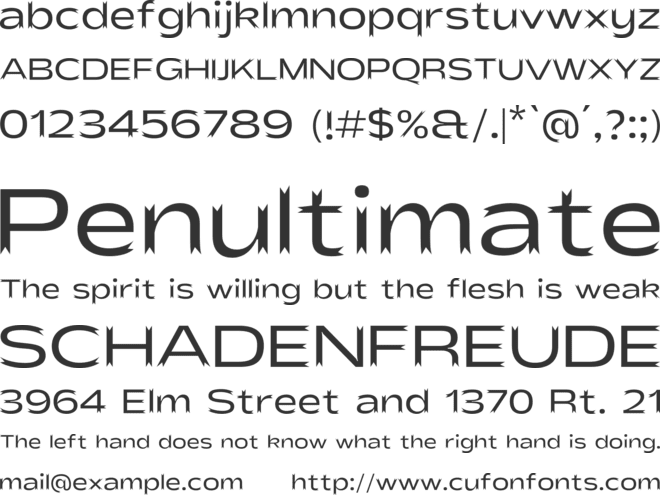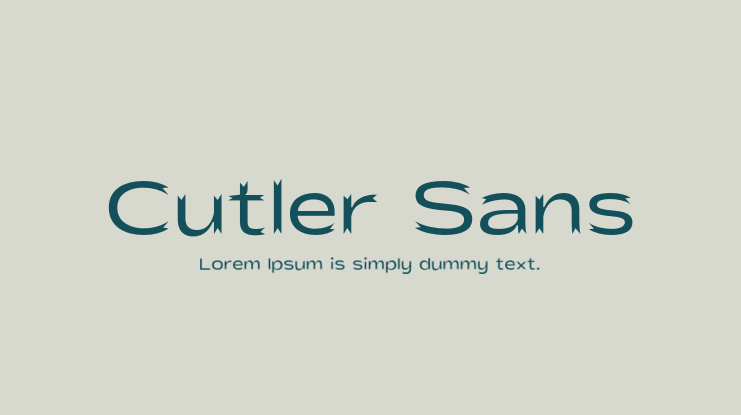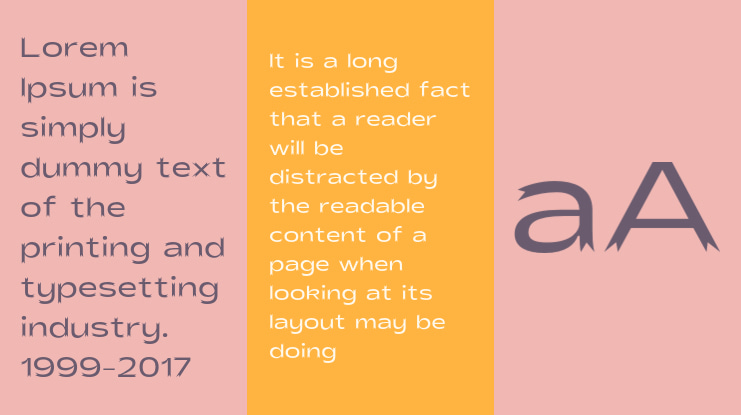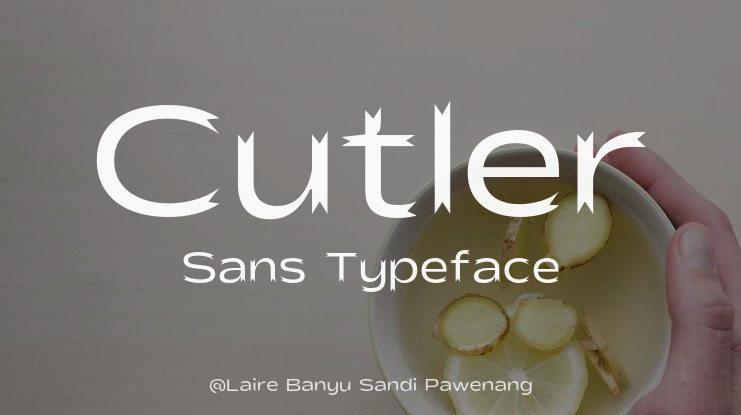
Laire Banyu Sandi Pawenang
Cutler Sans is a modern display sans-serif font with unique, bold characteristics that set it apart from conventional sans-serifs. Inspired by the precision of cut paper, each stem in Cutler Sans has a sharply angled end, mimicking the look of scissors slicing through paper. This distinct detail adds a dynamic, crafted feel to the letters, creating a clean yet full-of-character aesthetic.